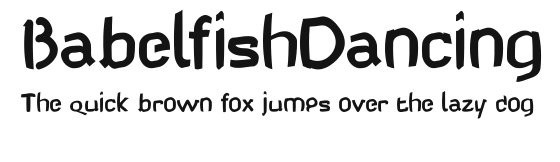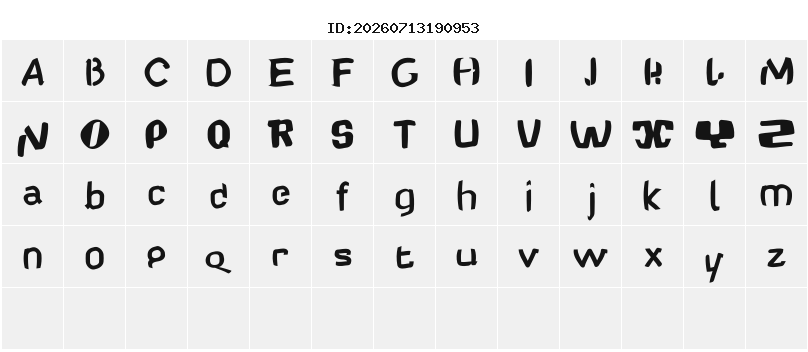
BabelfishDancing Preview
• Font Name: BabelfishDancing
• Font ID: BabelfishDancing
• Full Font Name: BabelfishDancing
• Version: 1.0 2002-07-21
• PostScript Name: BabelfishDancing
• Character Count: 53
About BabelfishDancing.ttf
BabelfishDancing.ttf is a modern, elegant sans-serif font designed for ultimate readability and visual harmony. Perfect for branding, headlines, web design, and print materials.